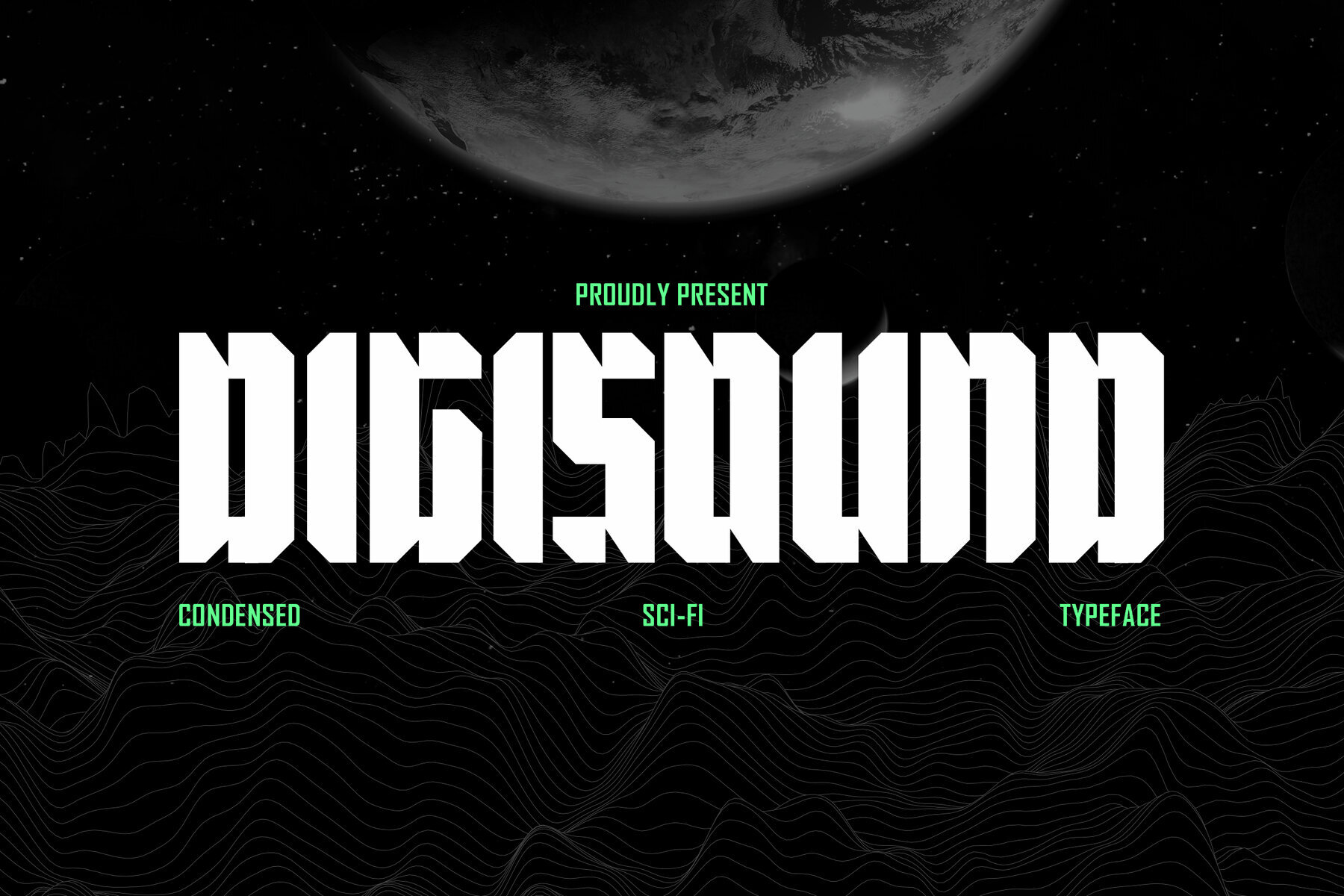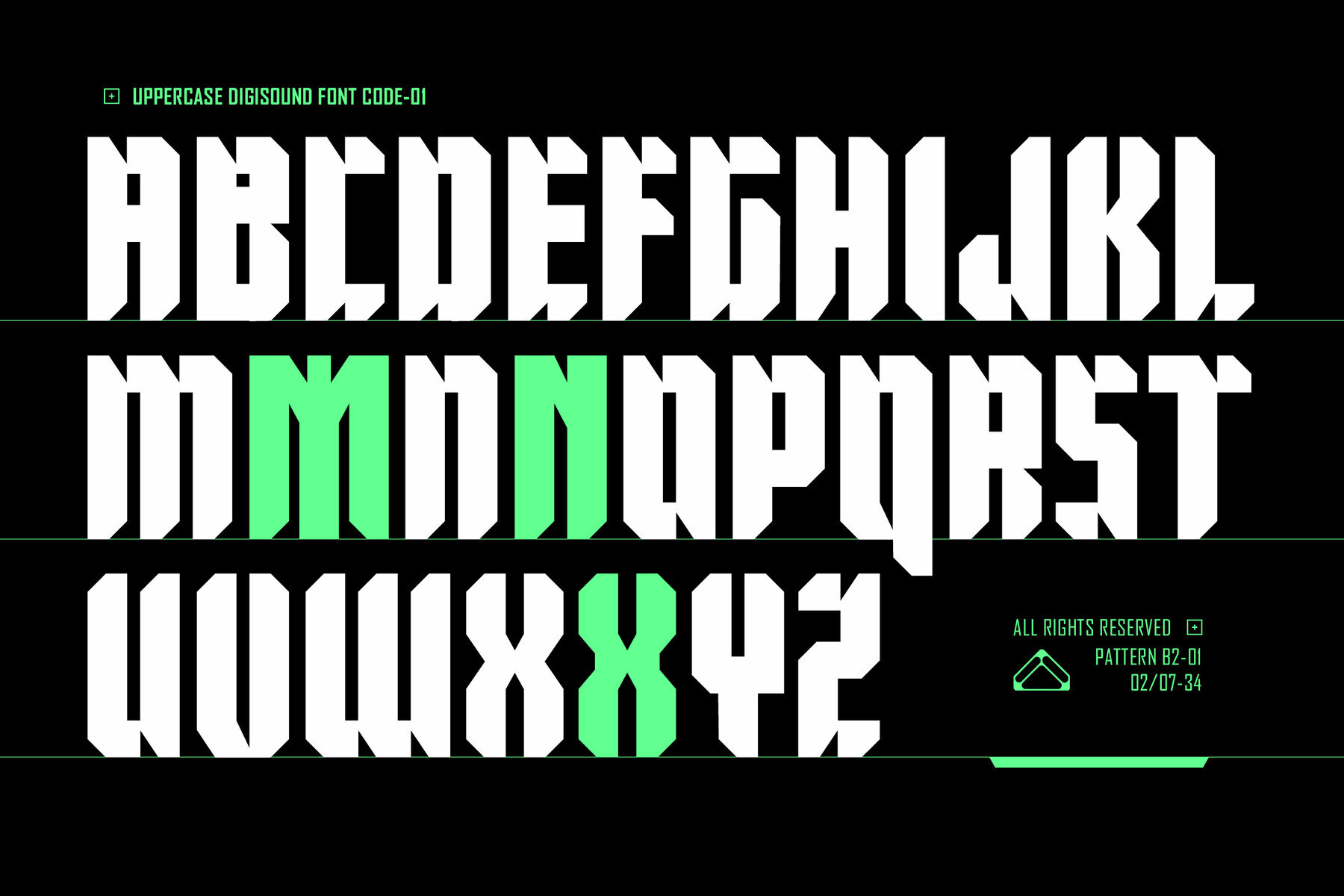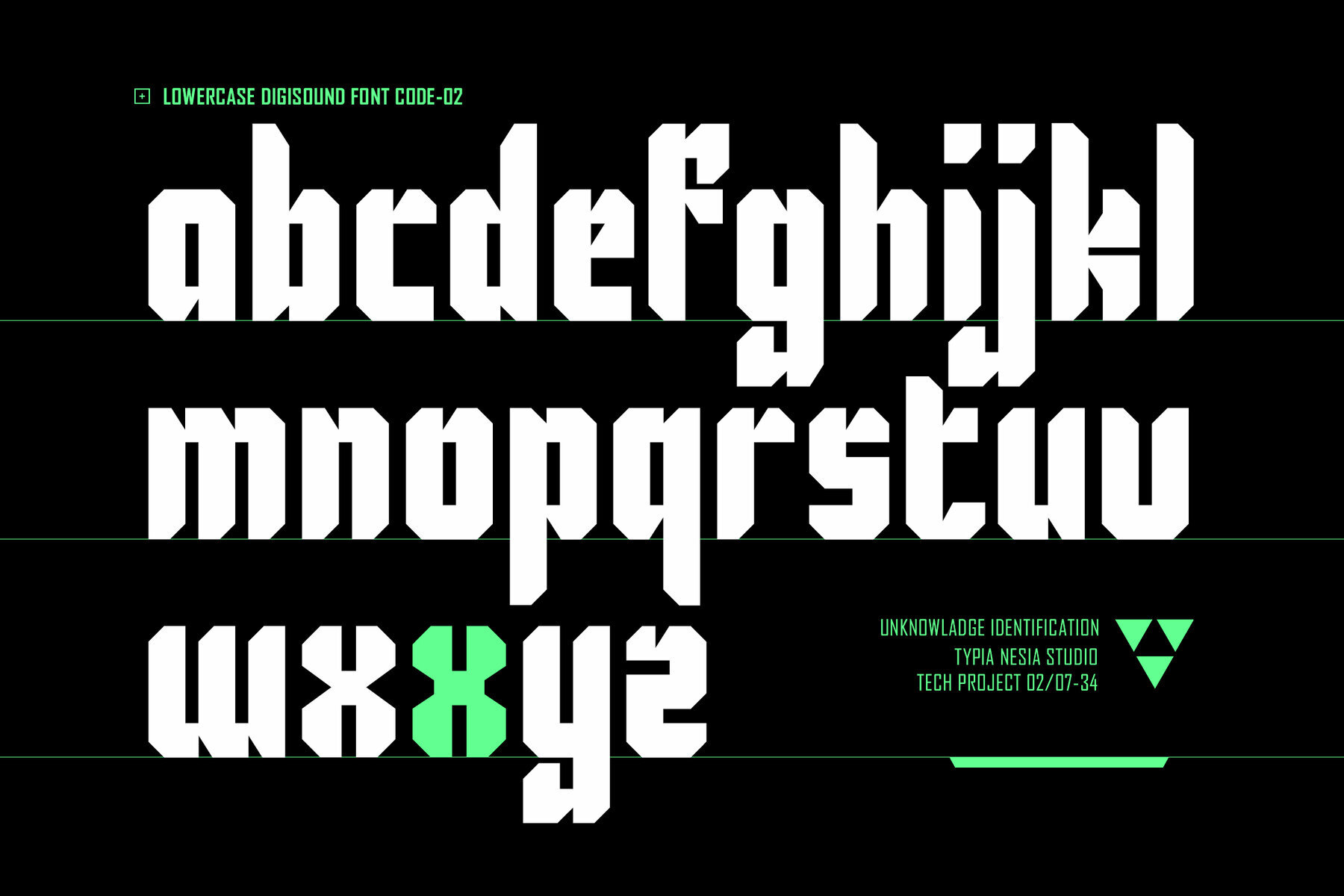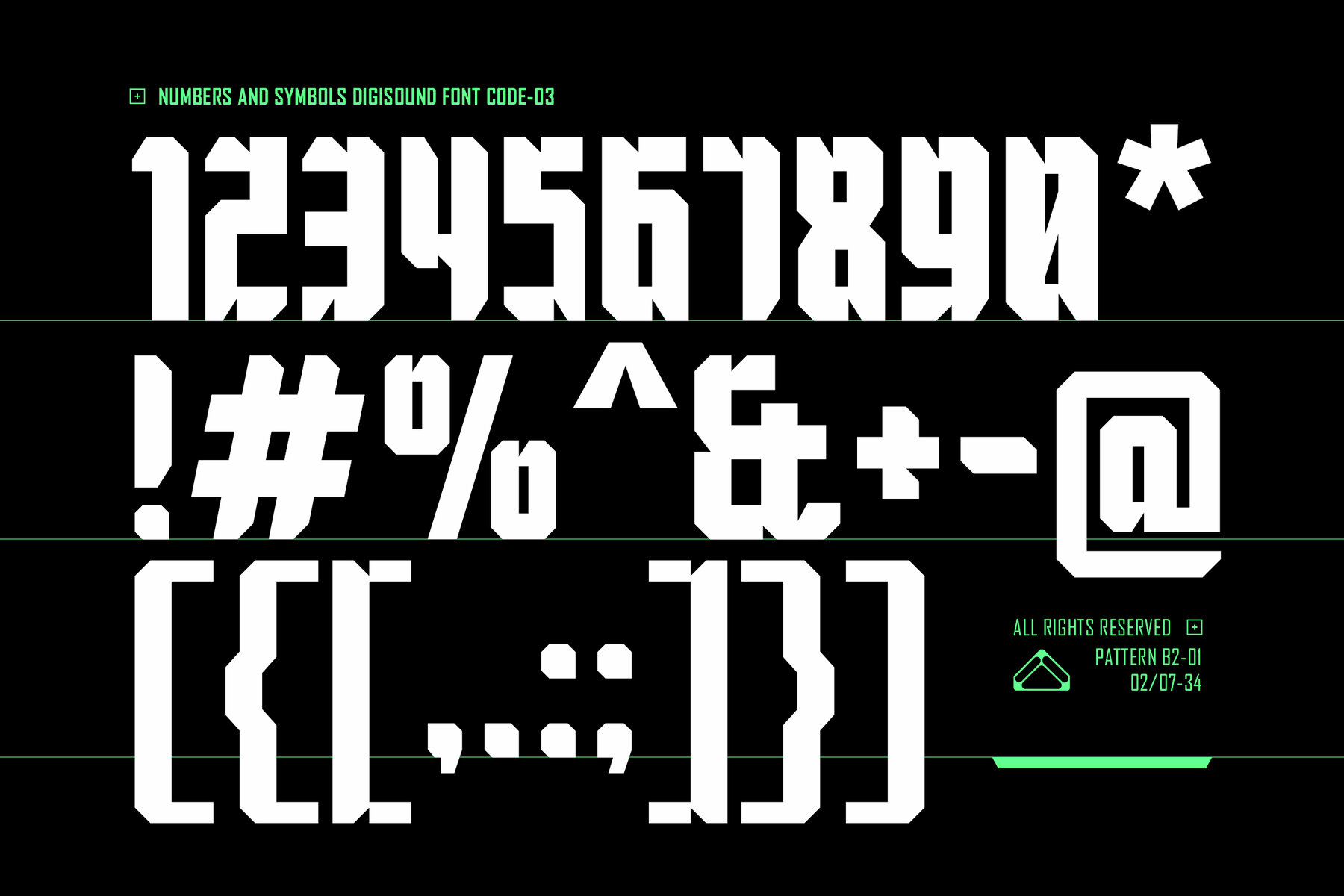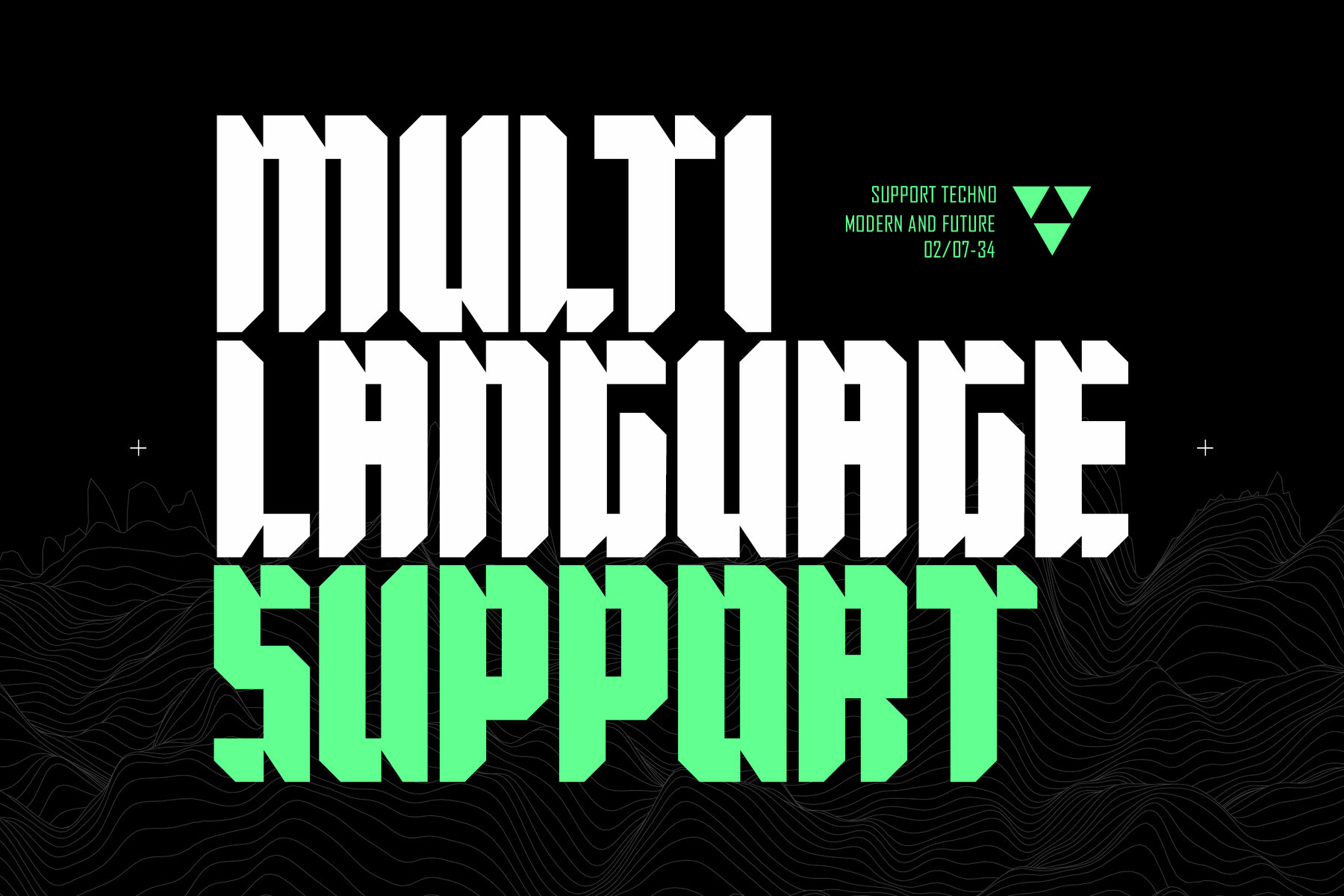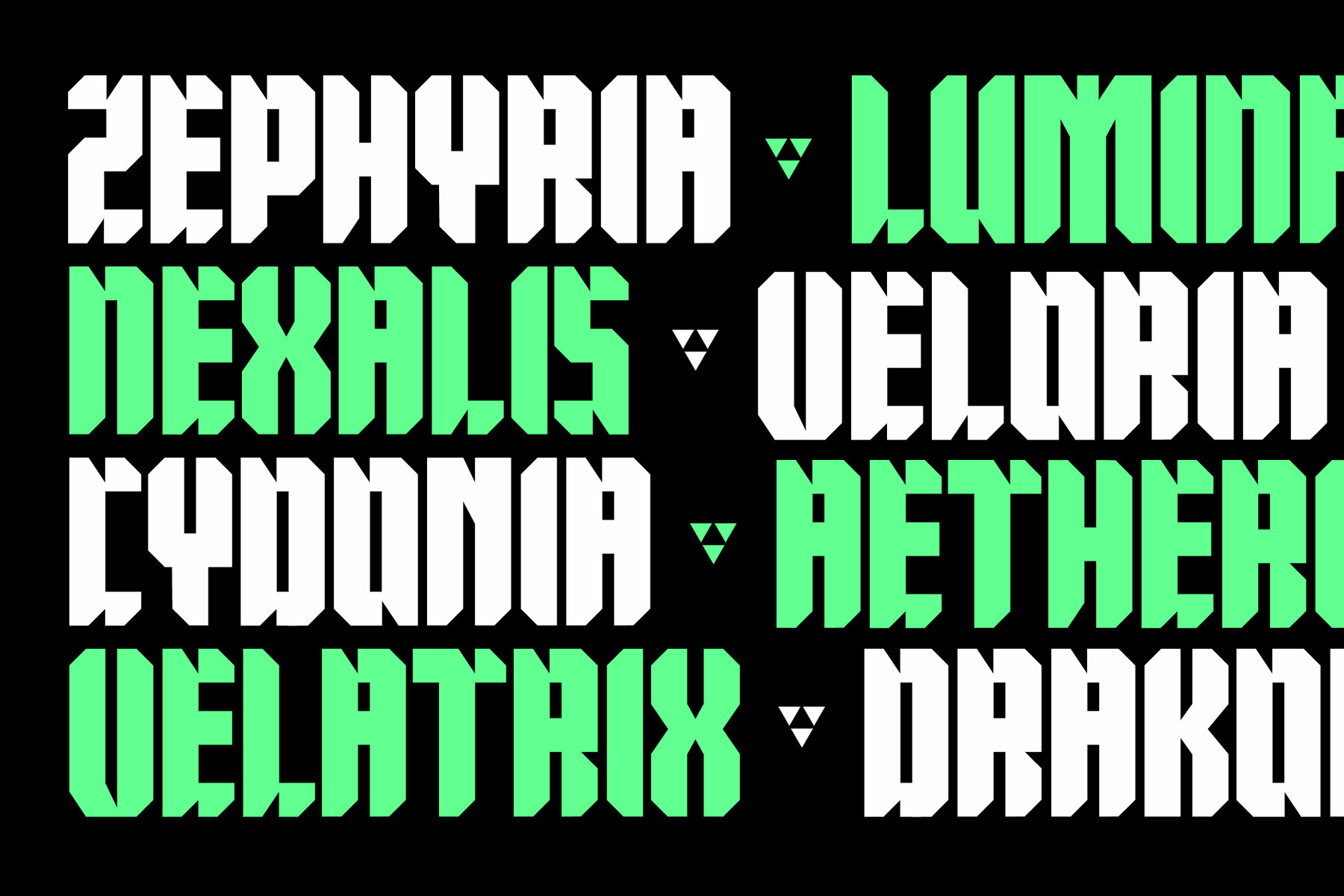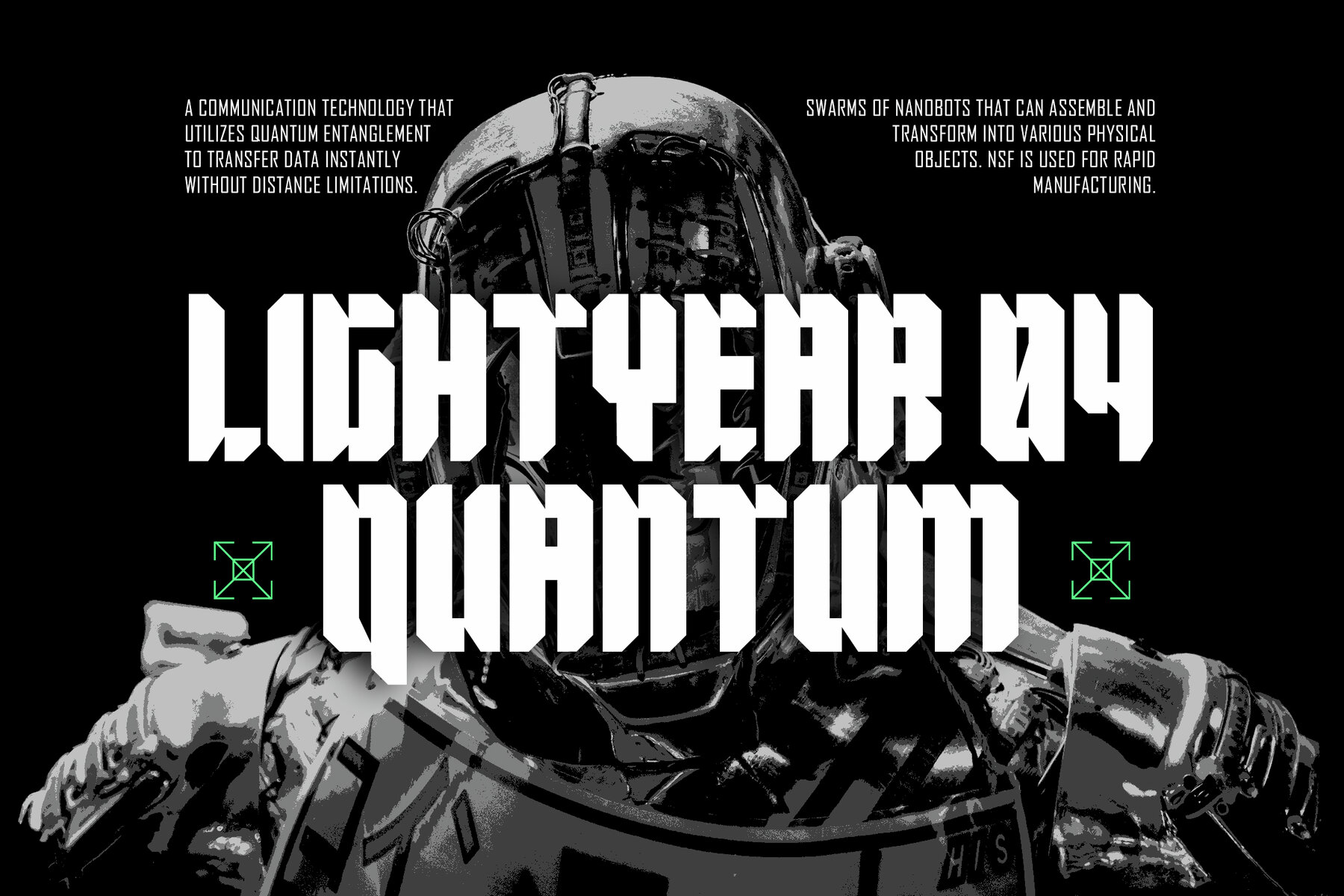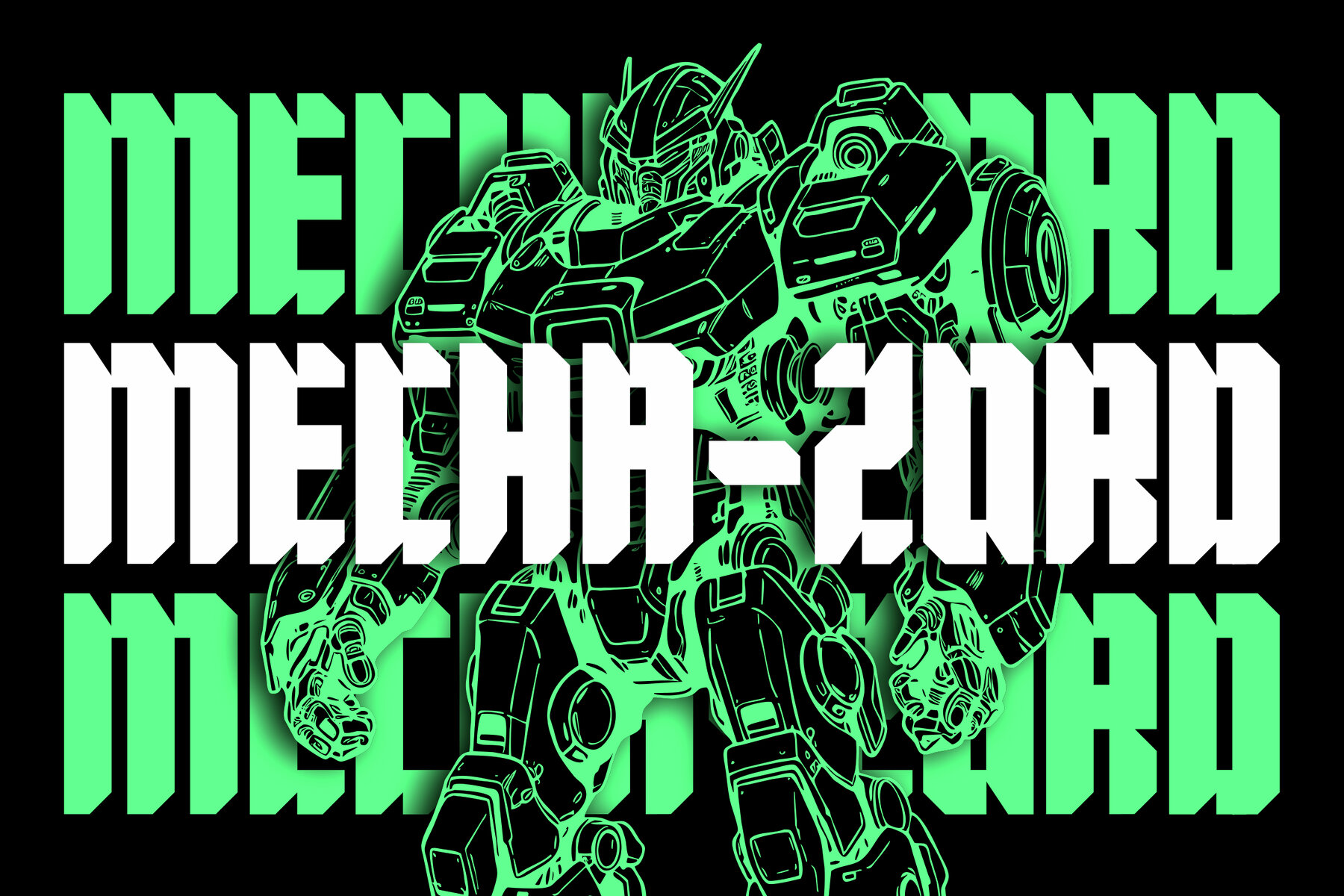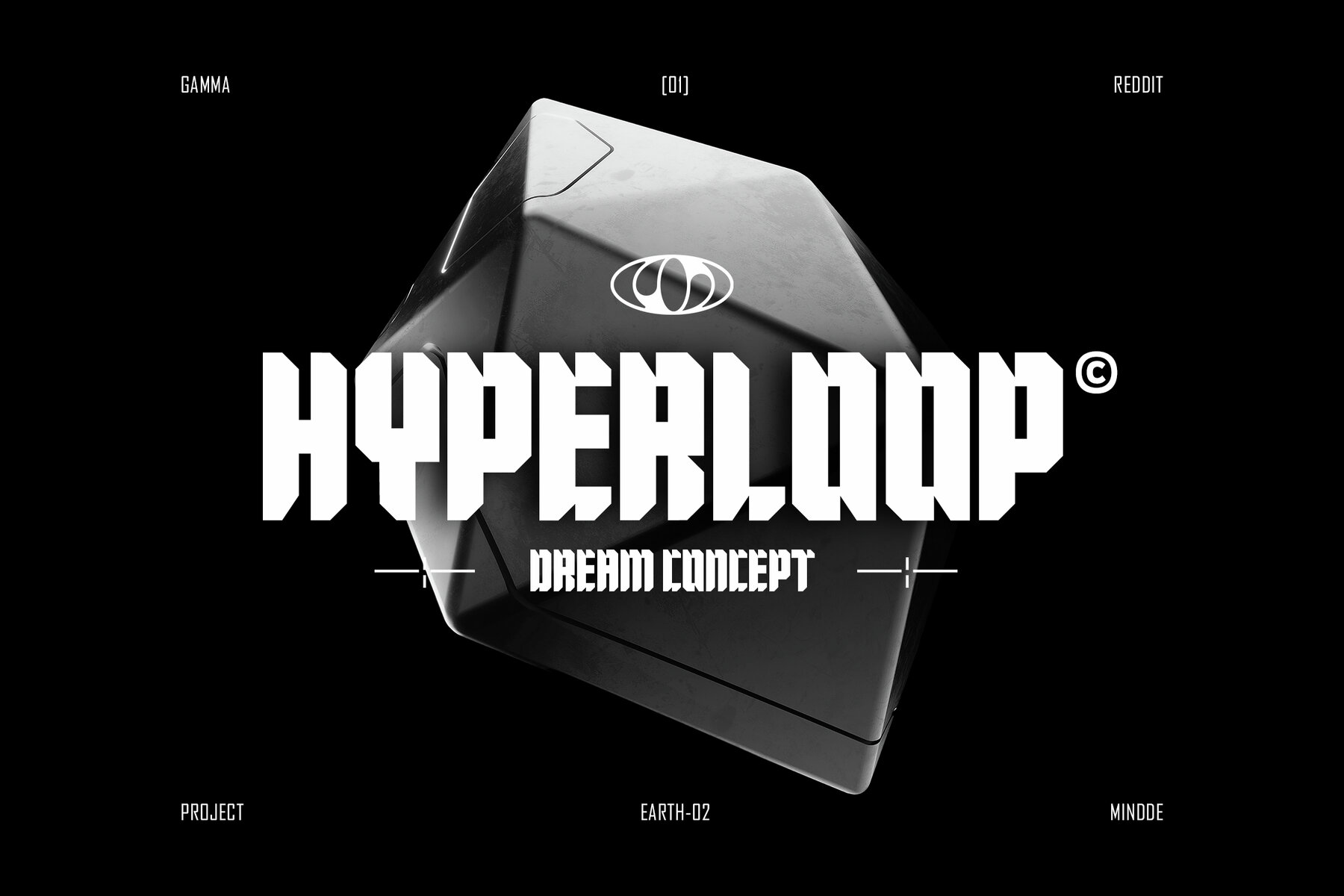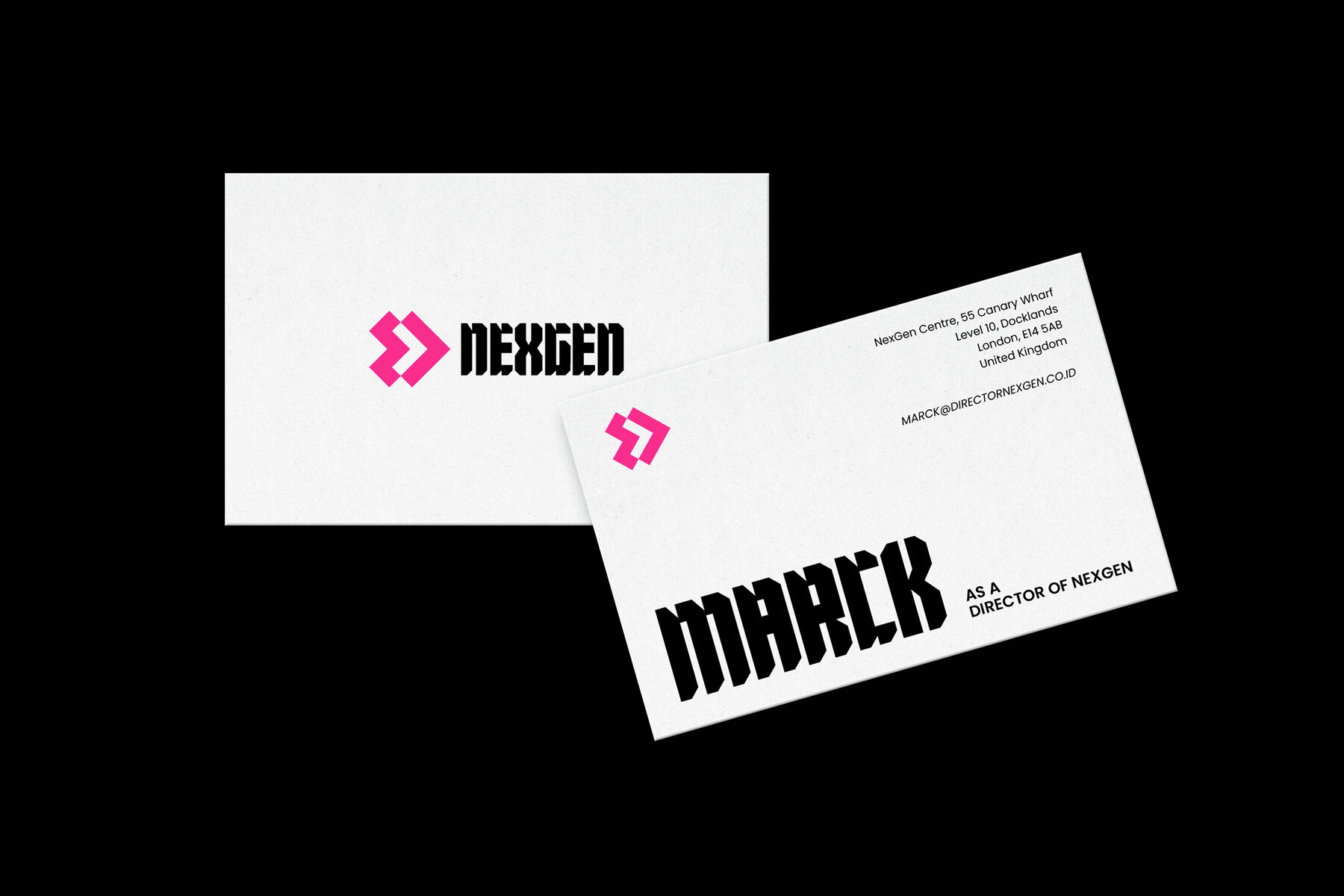
Digisound Font
Digisound Regular
Digisound is a modern, bold, condensed sci-fi futuristic font that captures the essence of the digital age. Featuring sharp lines, a condensed structure, and a bold appearance, it brings a high-tech, cutting-edge vibe to your projects. Ideal for sci-fi-themed branding, tech logos, futuristic posters, video game titles, movie posters, and digital interfaces, Digisound ensures a modern, tech-forward look that stands out.
Equipped with a complete set of uppercase and lowercase letters, punctuation, numerals, and unique alternates, Digisound is highly functional for various design needs. It also offers extensive multilingual support, making it adaptable and versatile for a wide range of creative projects. Merging modern typography's boldness with futuristic design, Digisound is both visually impactful and highly versatile, making it a top choice for designers aiming to craft bold, futuristic visuals.